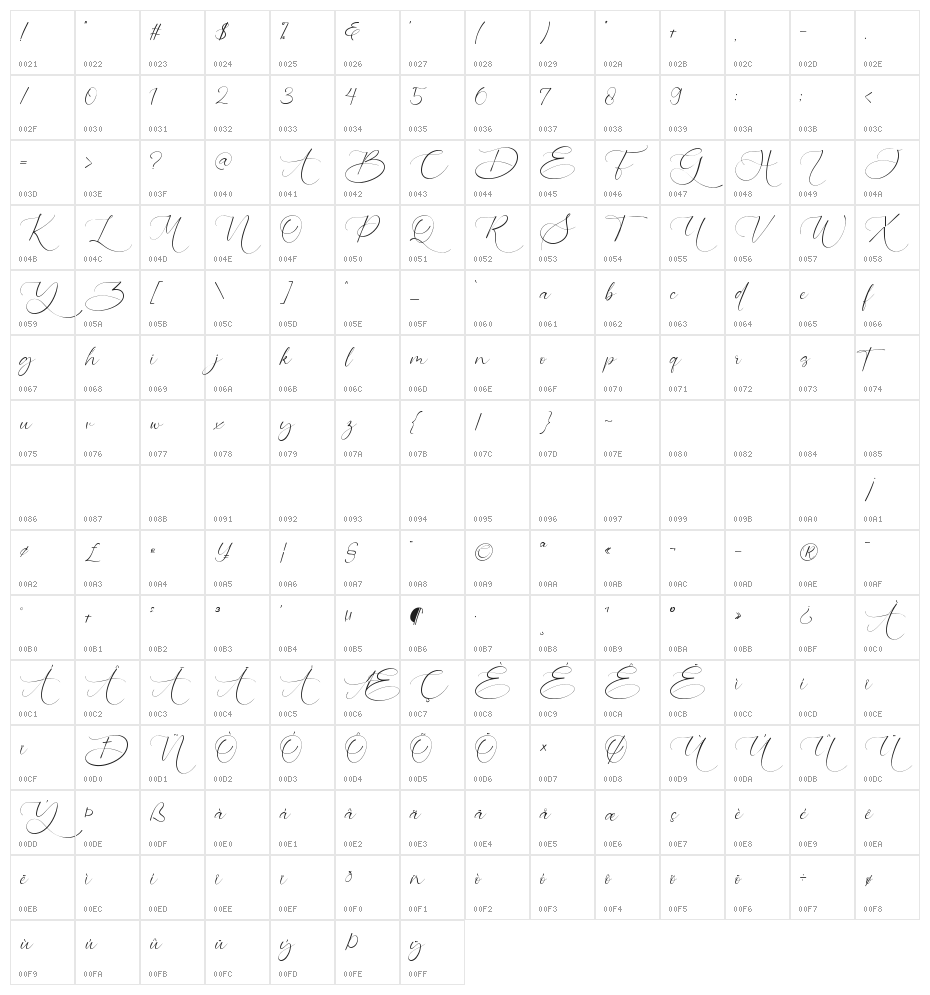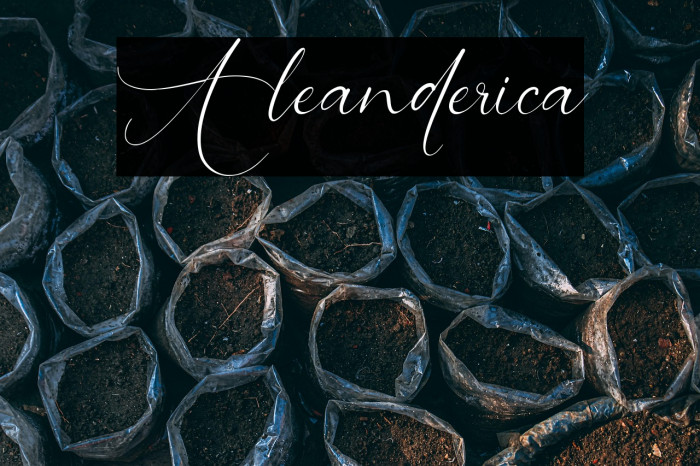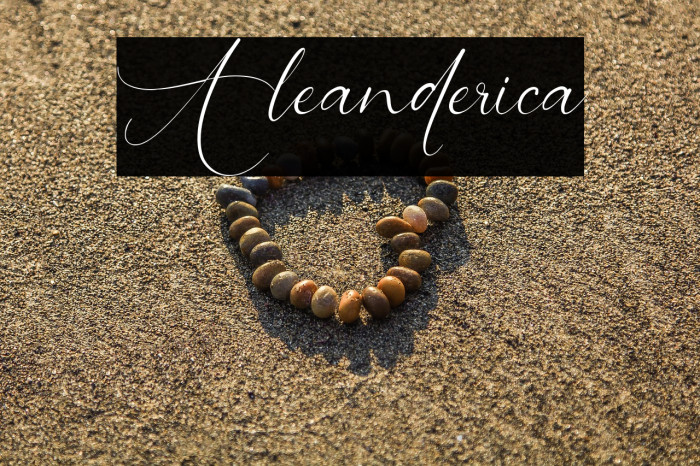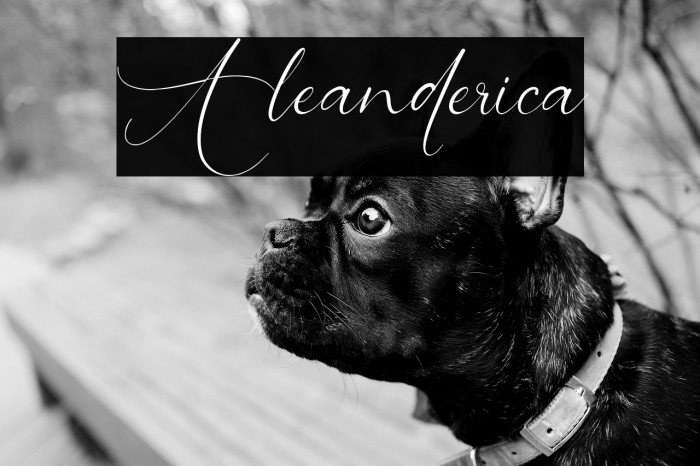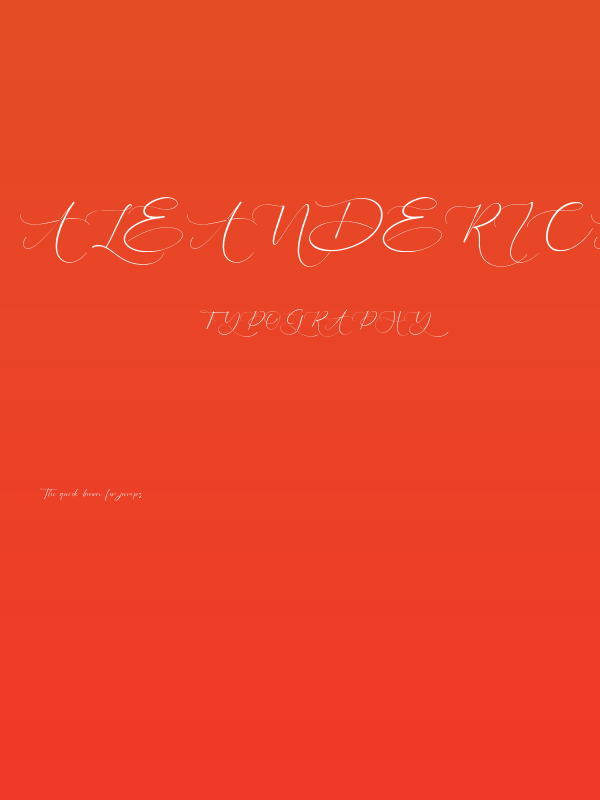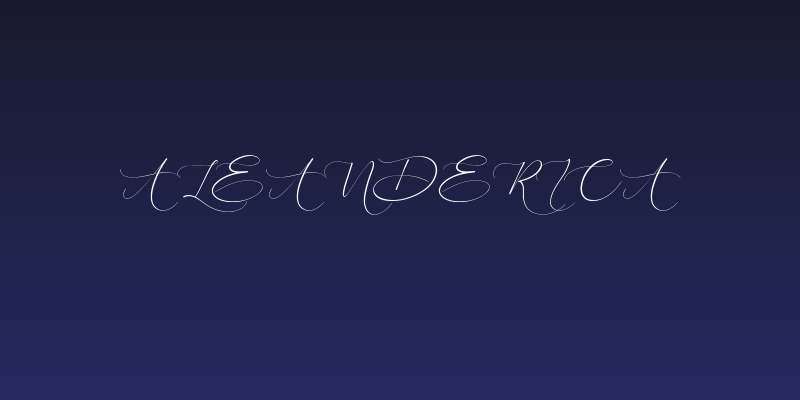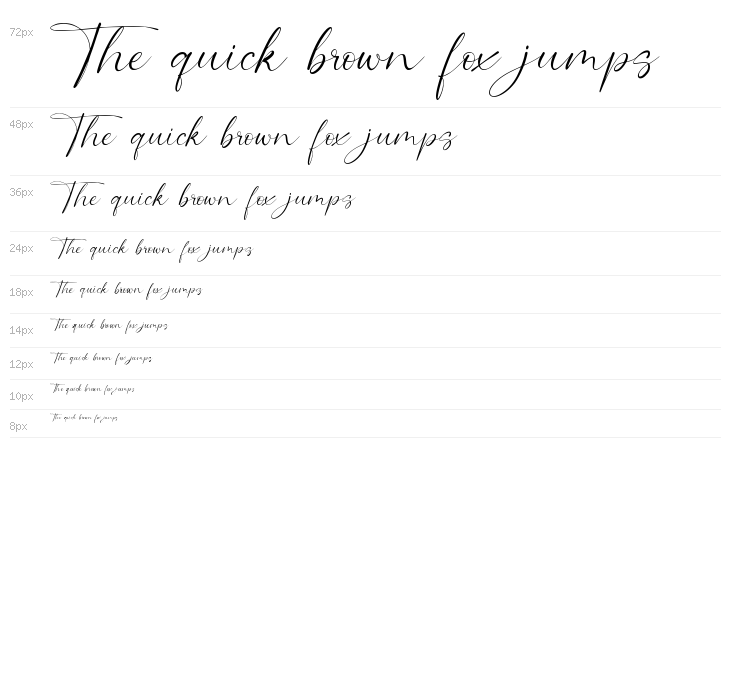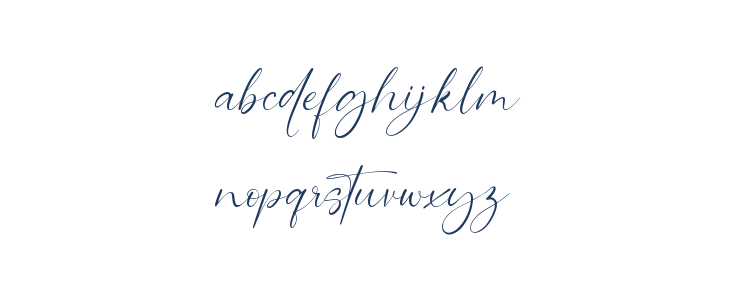
Aleanderica Font
Aleanderica Description
This elegant script font features flowing, interconnected letters with a refined and sophisticated appearance. The uppercase letters are ornate, with graceful loops and flourishes, while the lowercase letters maintain a consistent fluidity, enhancing readability. The numerals are stylishly crafted, matching the overall aesthetic of the font. Special characters are thoughtfully designed to complement the script style, adding versatility for various uses. The font's delicate lines and curves convey a sense of elegance and charm, making it suitable for formal and decorative applications.
| Overall Style | Elegant, Decorative |
| Proposed Projects | Ideal for wedding invitations, elegant branding, greeting cards, and upscale packaging. |